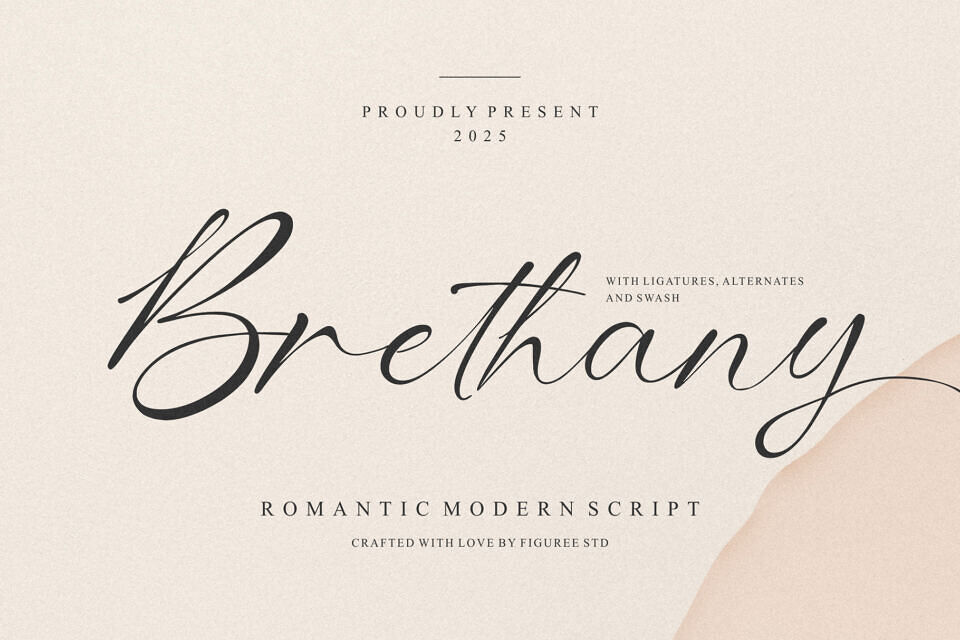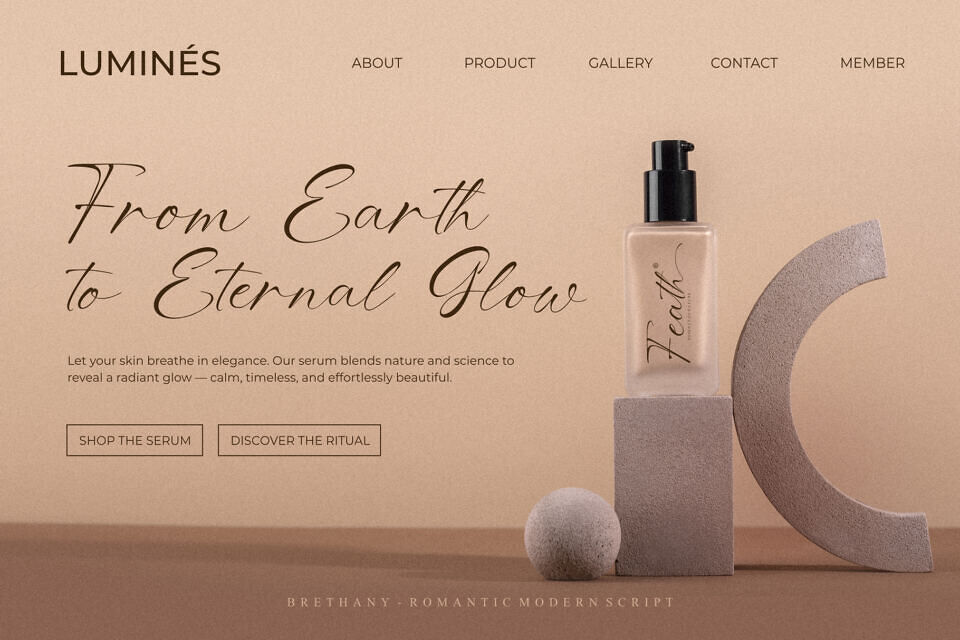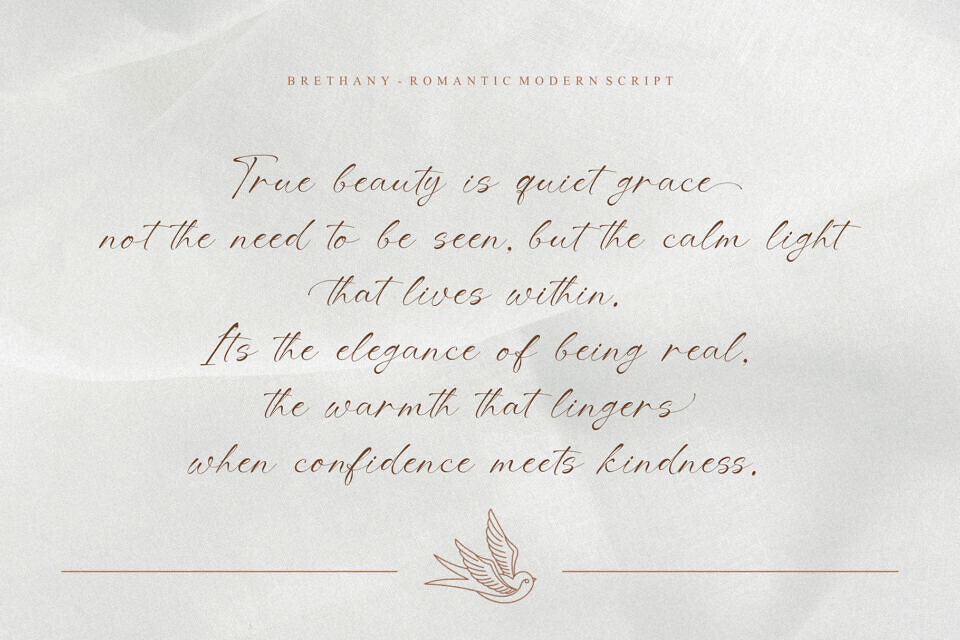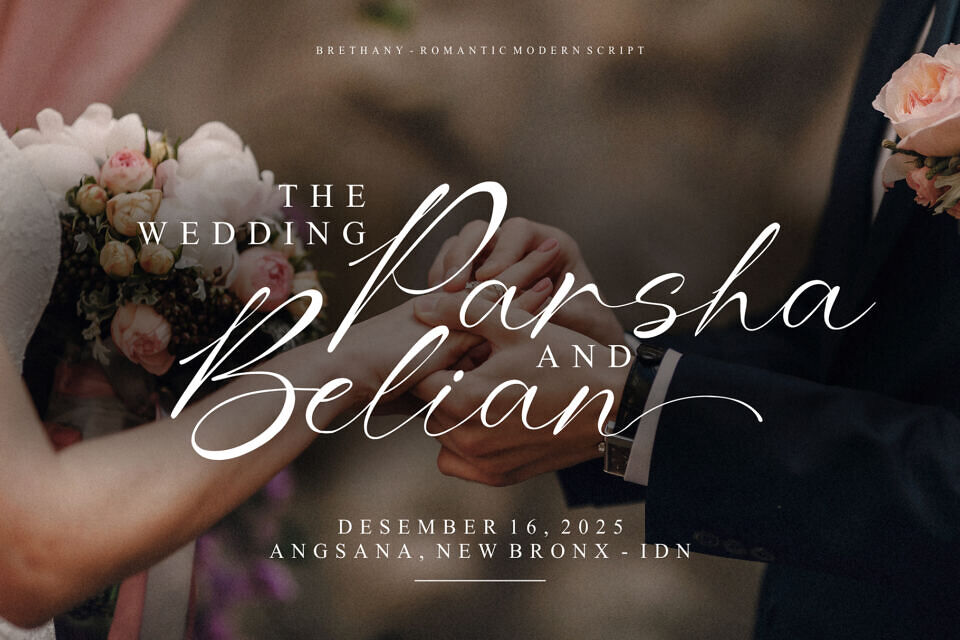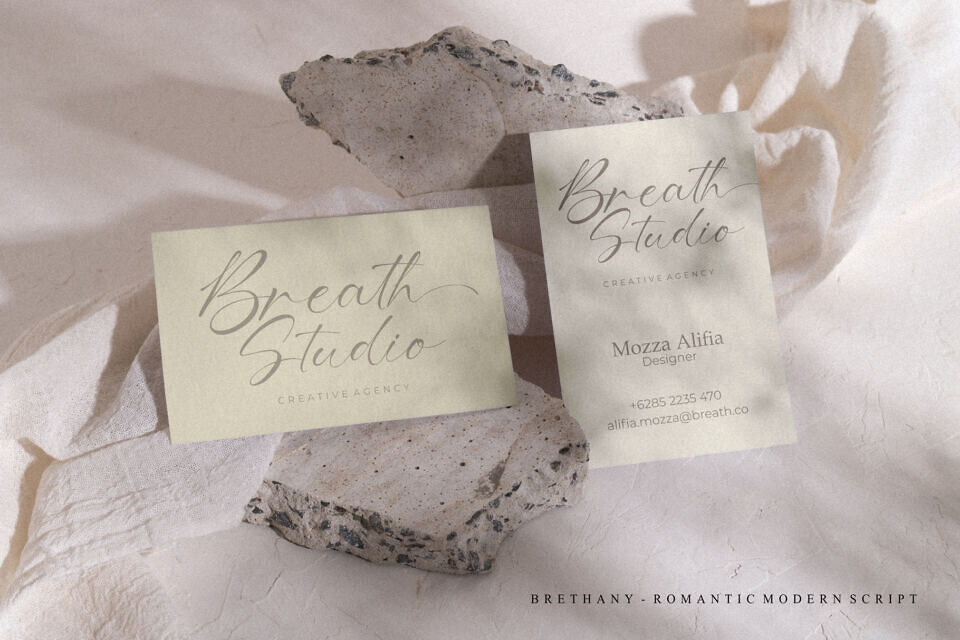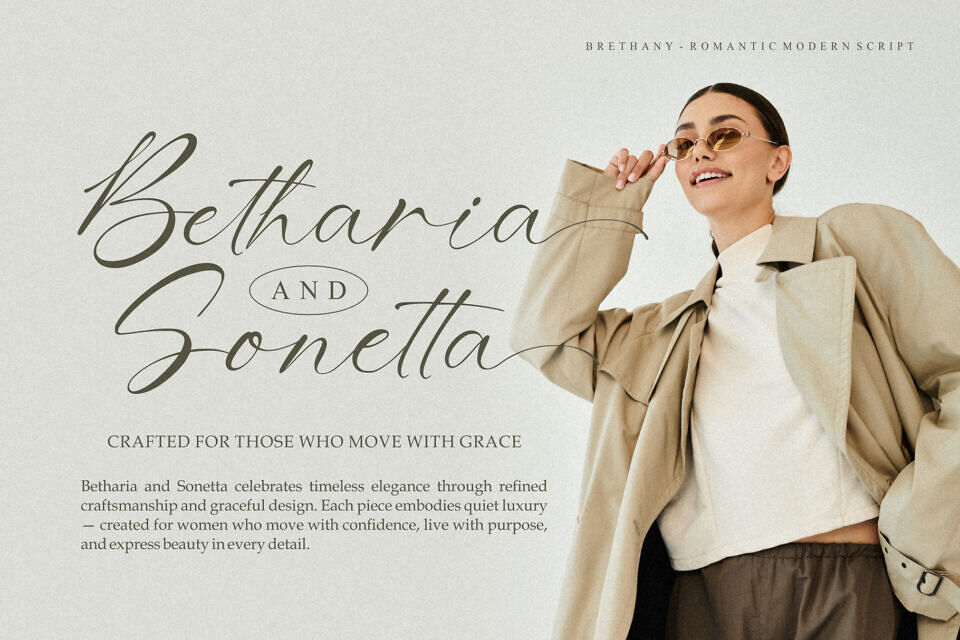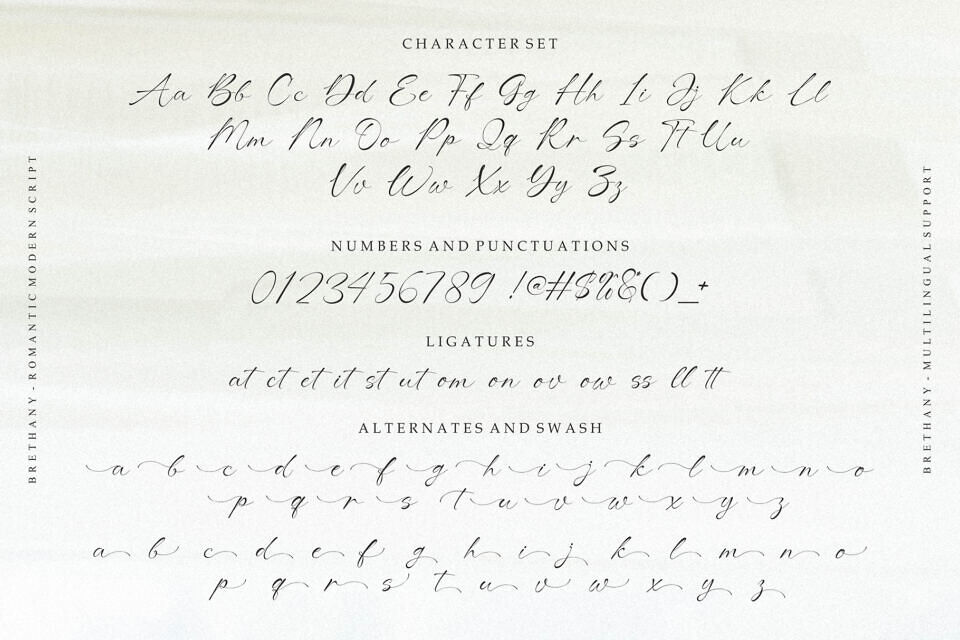
Brethany is a romantic modern script font designed to embody elegance, intimacy, and sophistication. Its graceful curves and refined ligatures transform words into visual poetry, perfect for wedding invitations, luxury branding, and editorial design.
Combining the charm of handwritten calligraphy with modern precision, Brethany offers exceptional readability and emotional depth. Designers value its versatility, multilingual support, and flawless flow, making it ideal for projects that require both delicacy and professionalism. Elevate your typography with Brethany—where romance meets refined design.